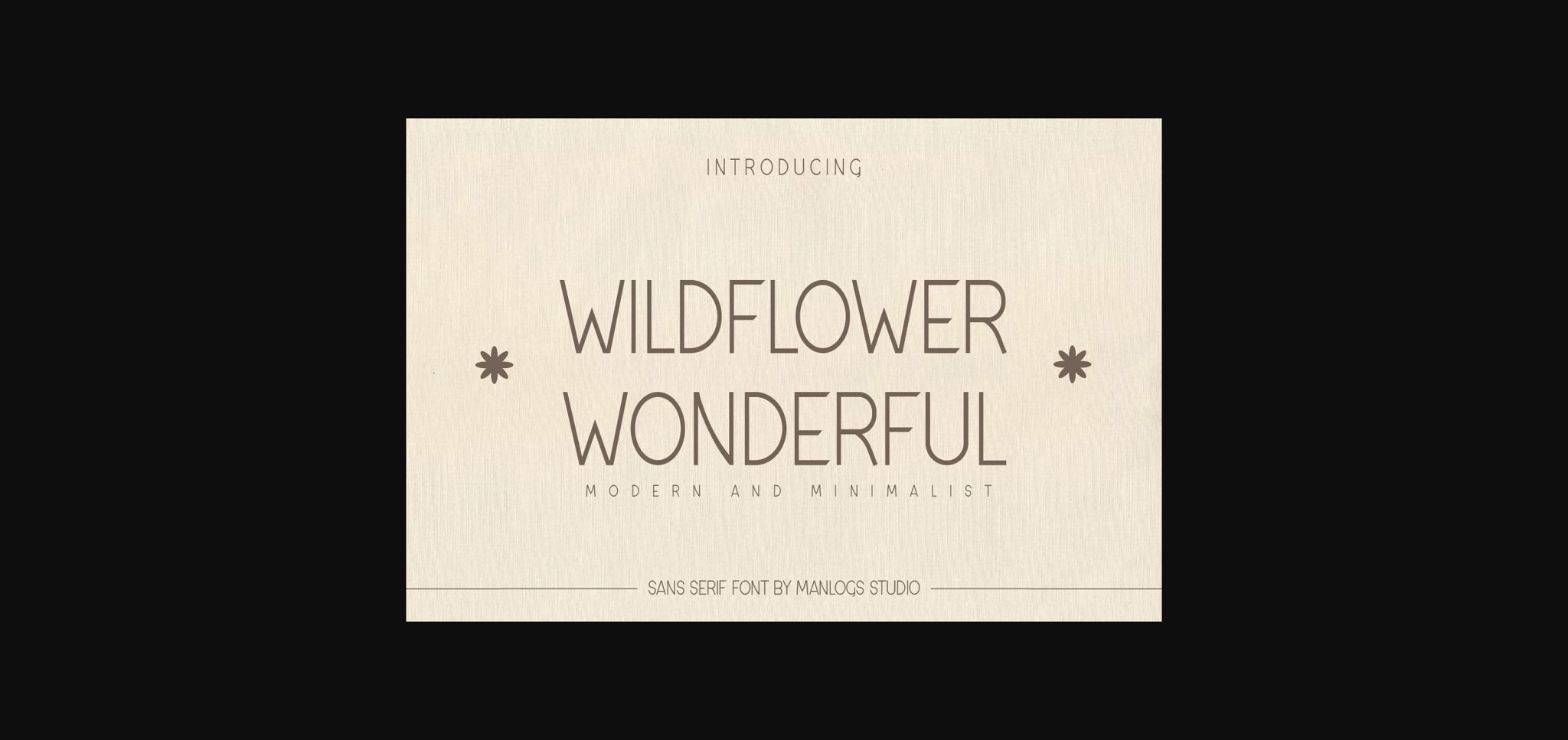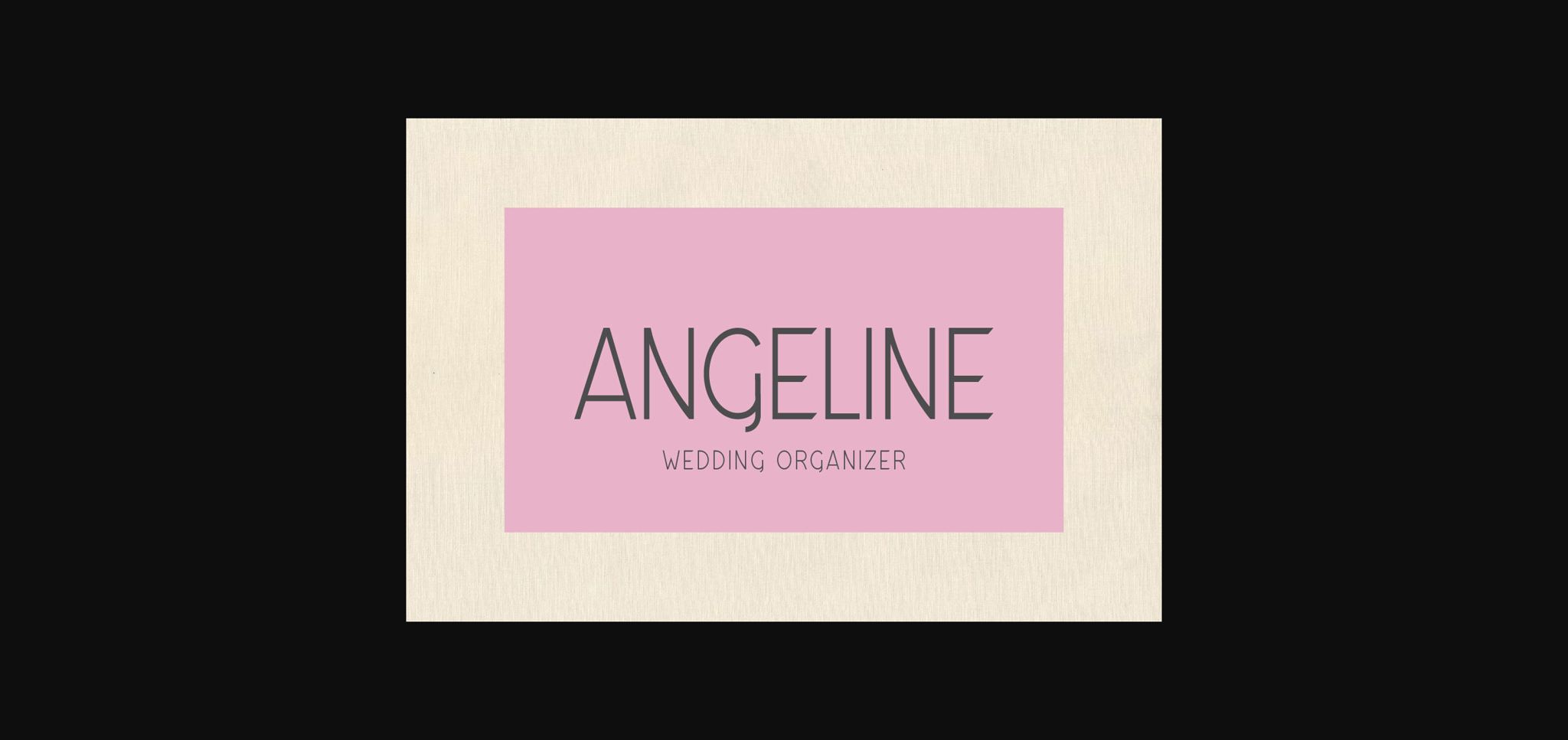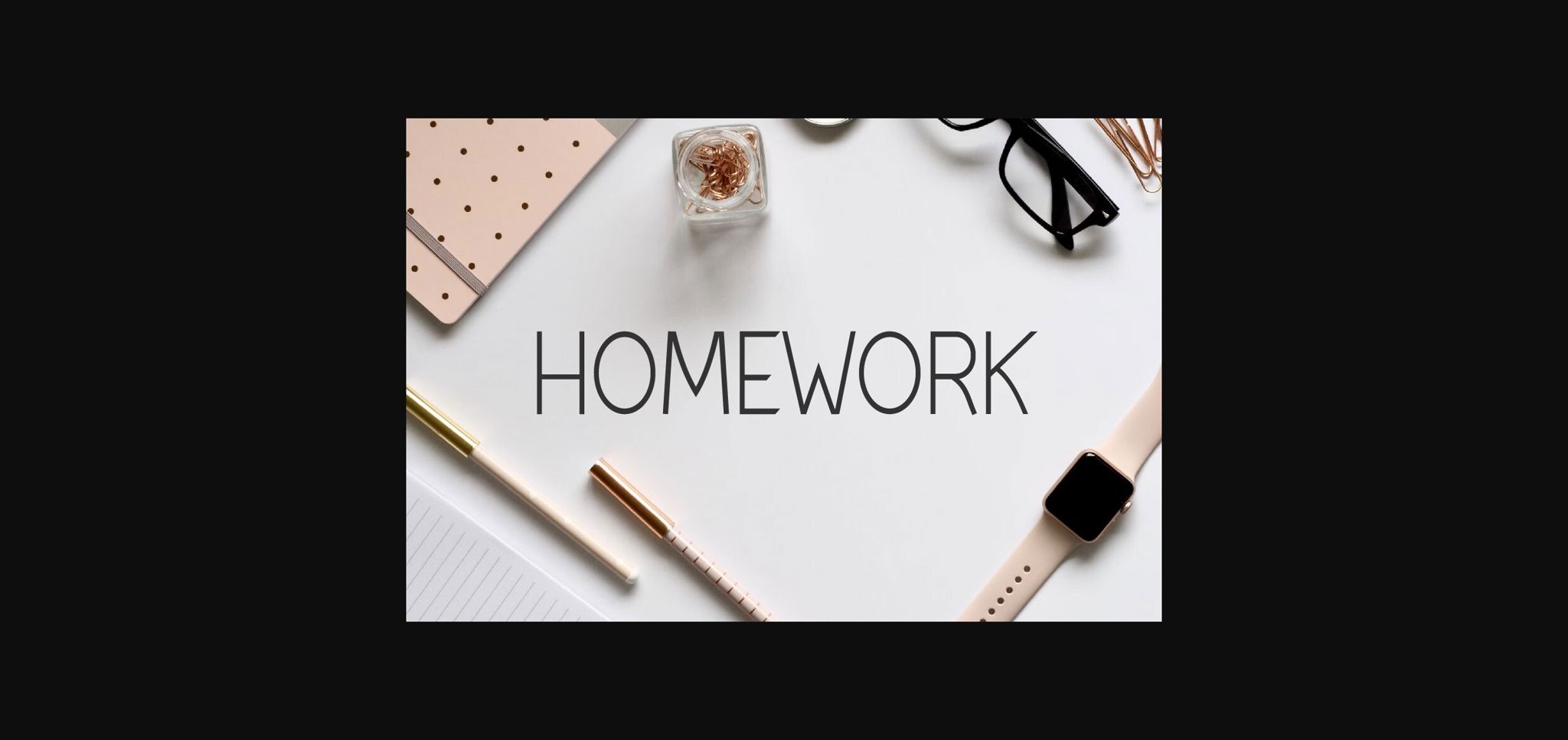
About Wildflower Wonderful Font
Wildflower Wonderful is a simple sans-serif font with a clean, beautiful style. This font is perfect for creating a minimalist aesthetic on fashion products, mugs, wedding invitations, home decor design, magazine covers, quotes, t-shirts, gift labels, logos, web design, branding and more!